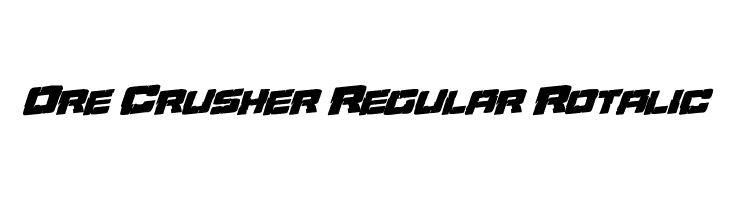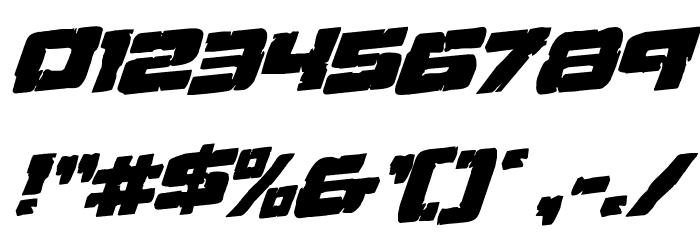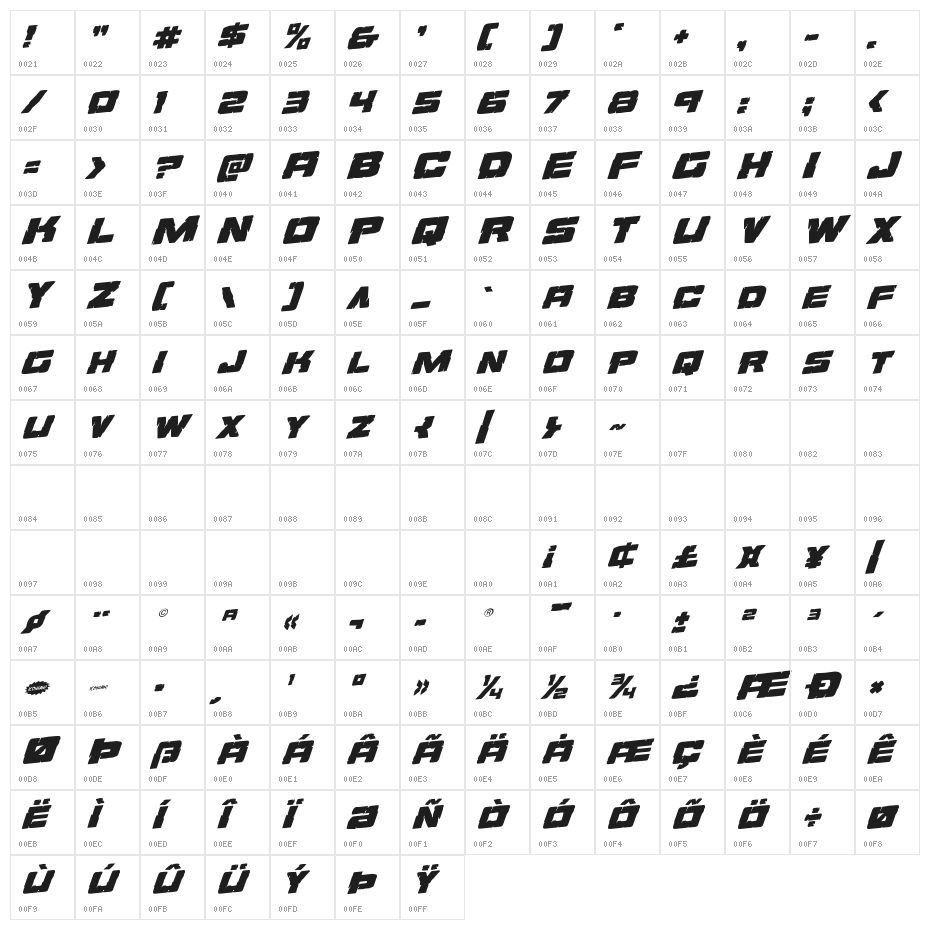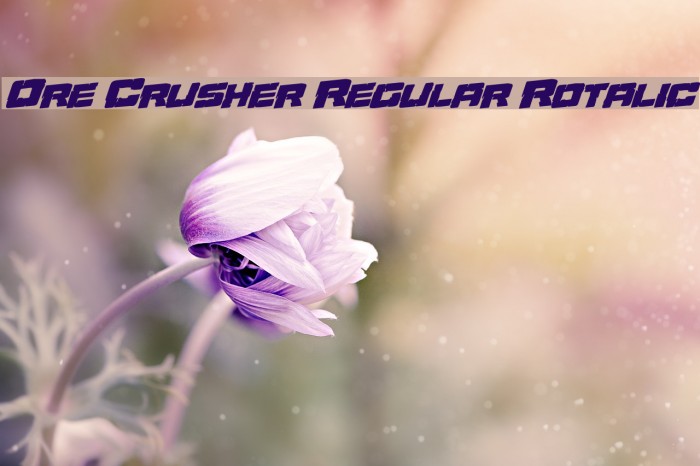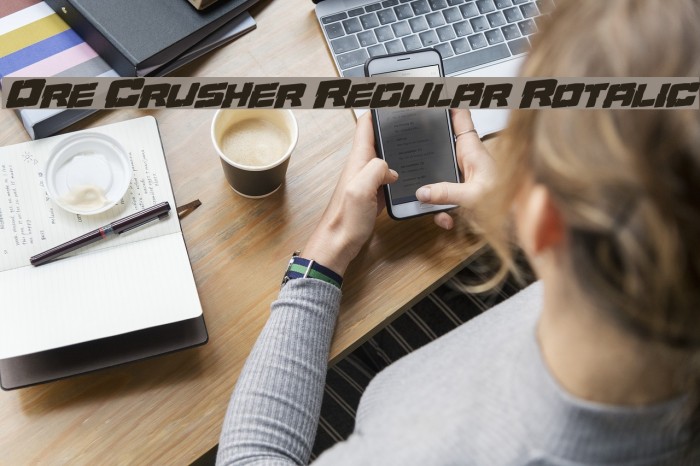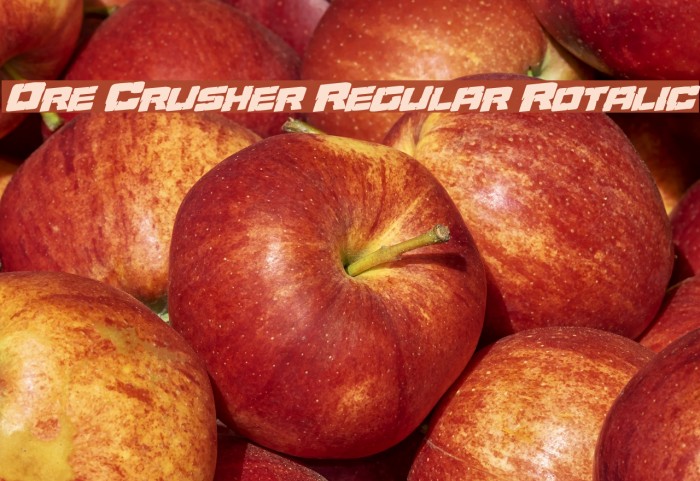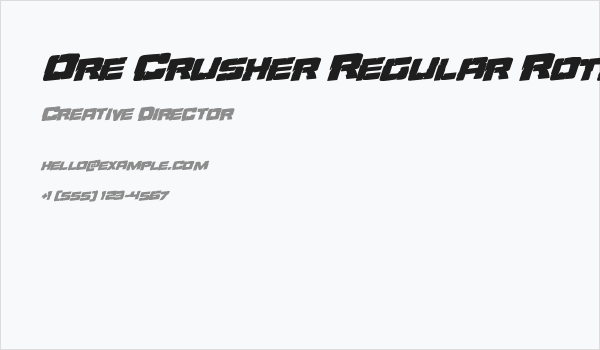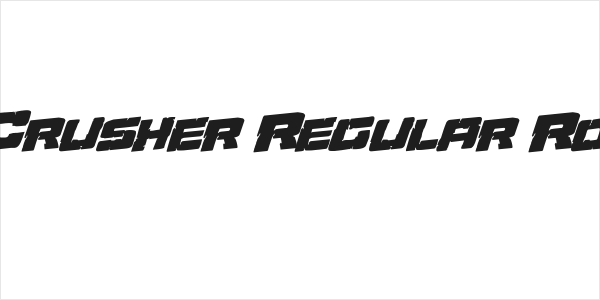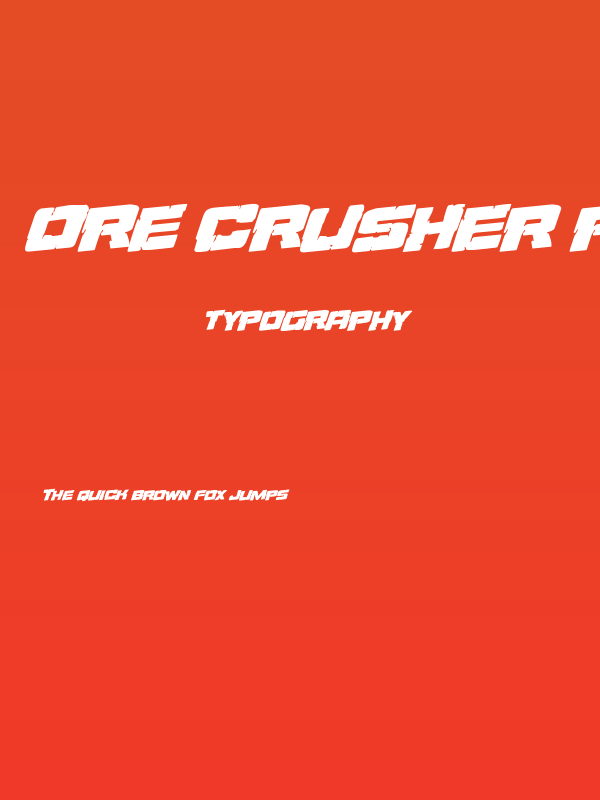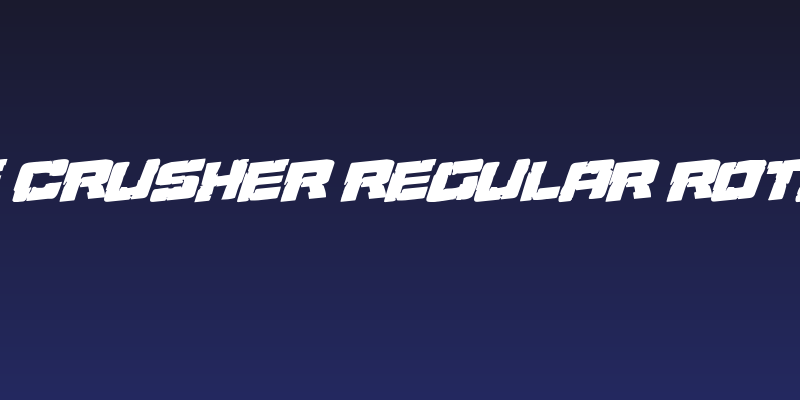
Ore Crusher Regular Rotalic Font
Ore Crusher Regular Rotalic Description
This font features a bold, dynamic style with a strong industrial feel. The characters are heavily slanted, giving a sense of motion and energy. Each letter is constructed with thick strokes and sharp angles, creating a rugged and powerful appearance. The font's design is reminiscent of machinery and metalwork, making it ideal for projects that require a robust and impactful look. The uppercase and lowercase letters maintain a consistent style, while the numbers and special characters complement the overall aesthetic with their bold and angular forms.
| Overall Style | Industrial, Dynamic |
| Proposed Projects | Ideal for branding, posters, and any project needing a strong, industrial aesthetic. |